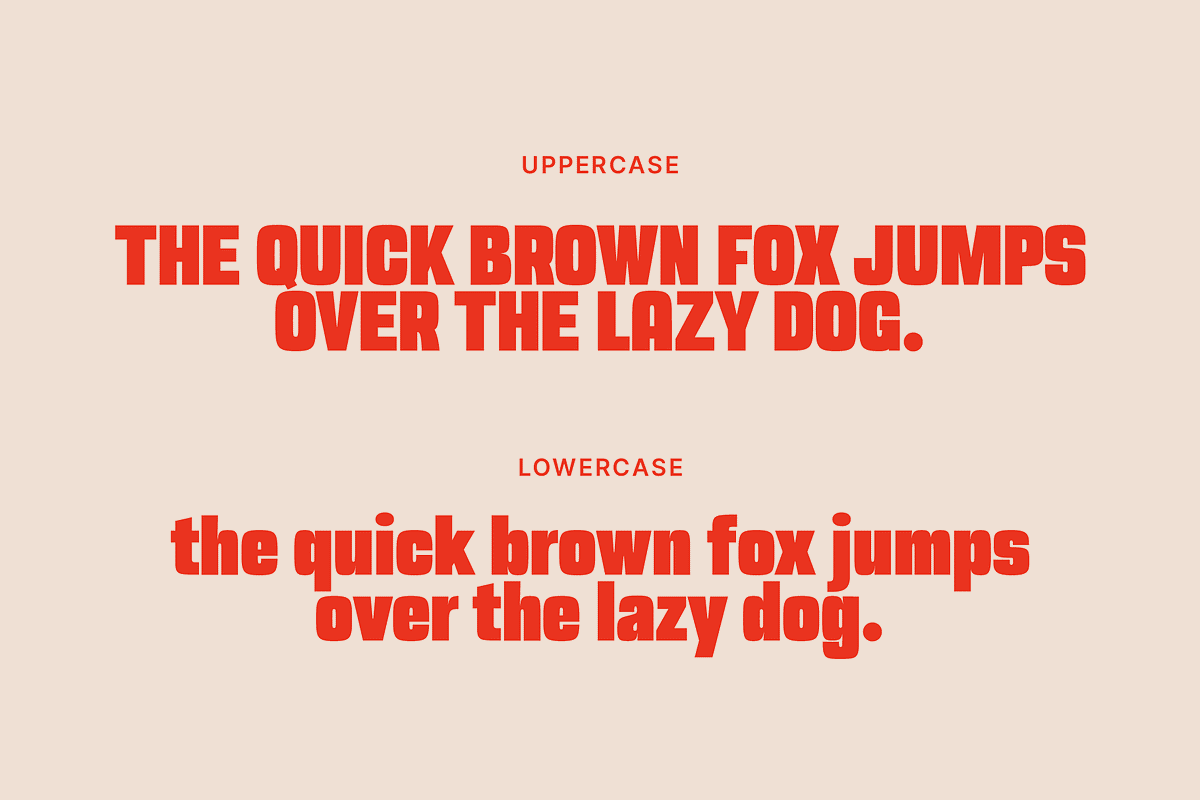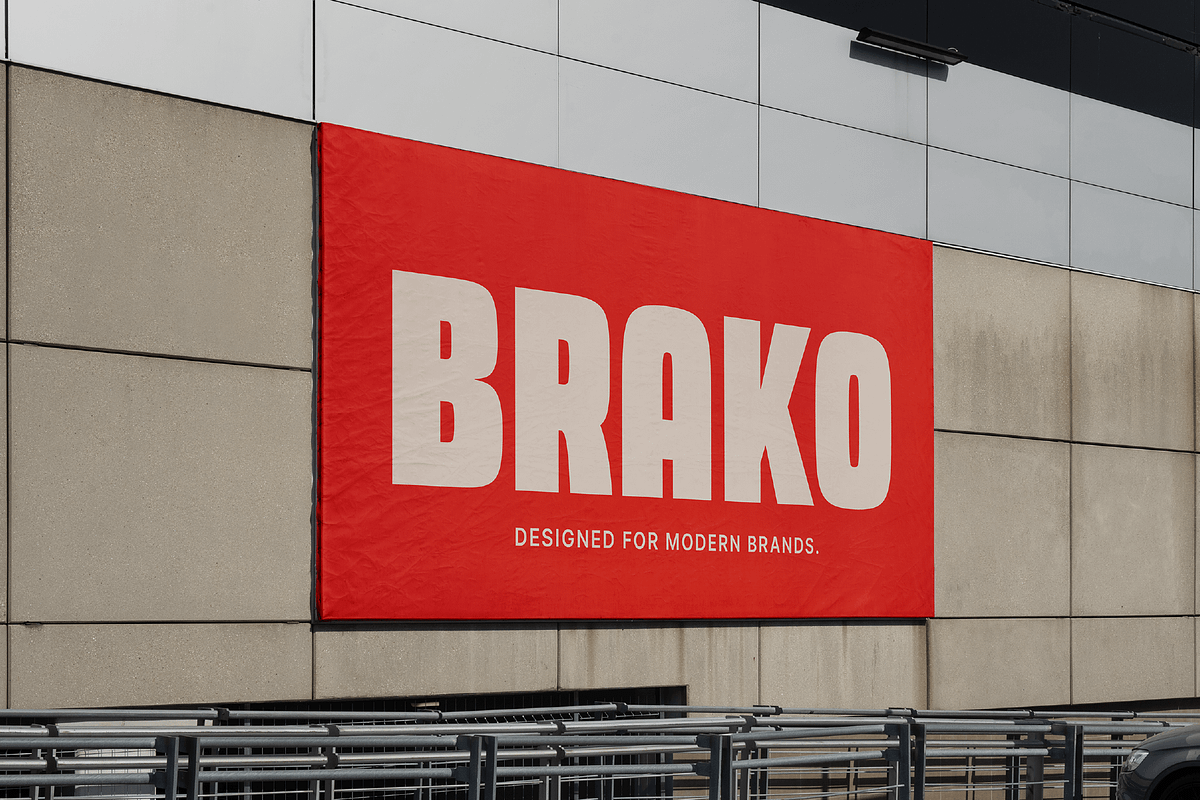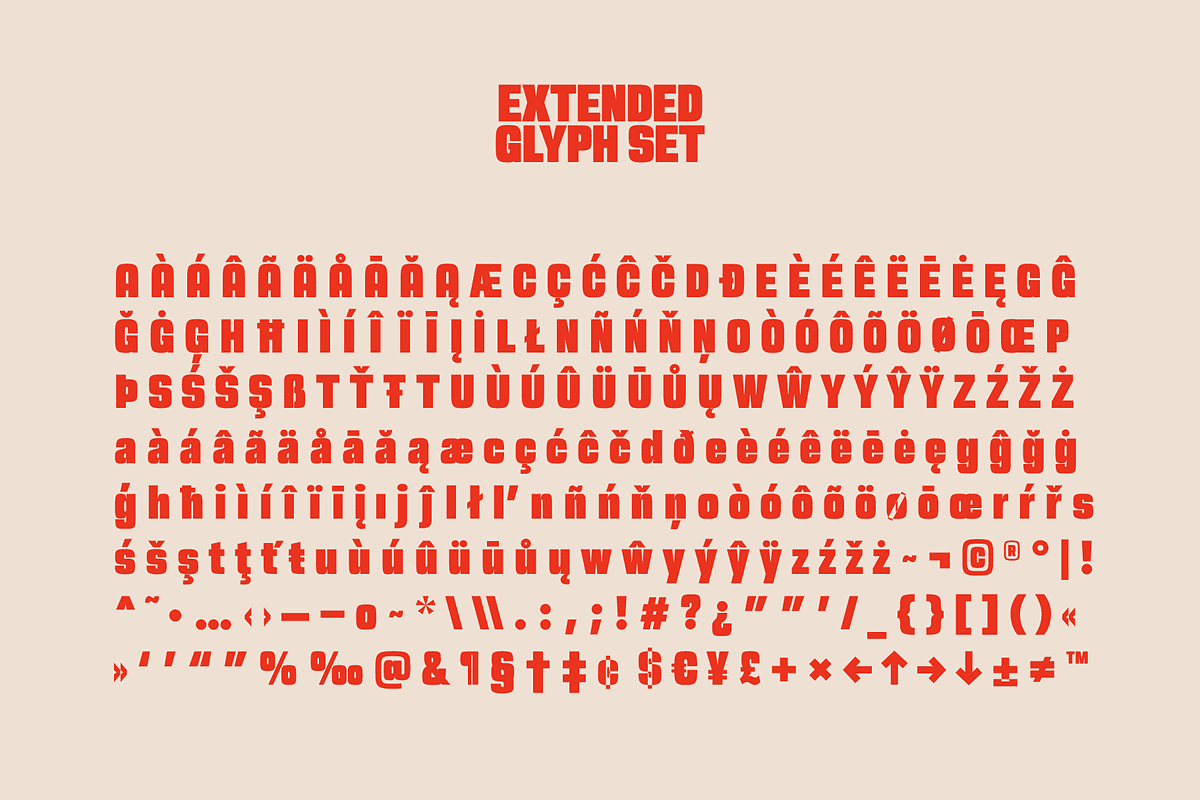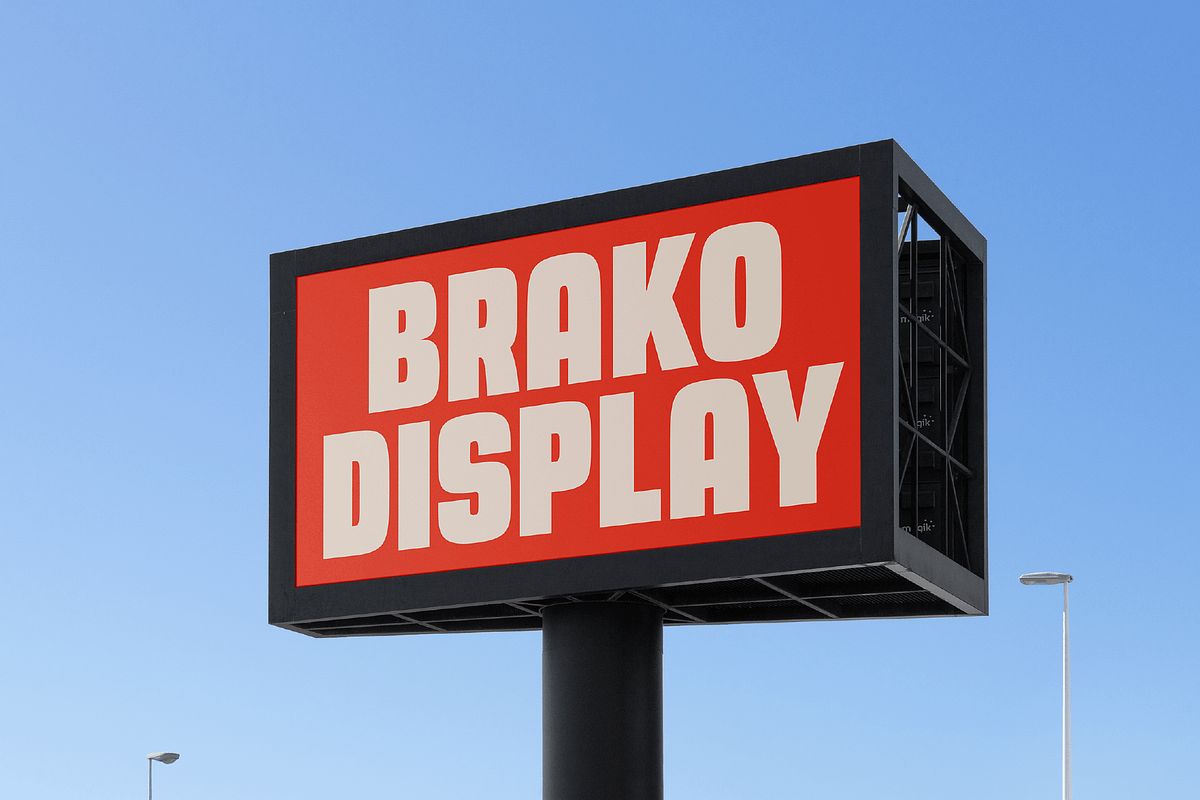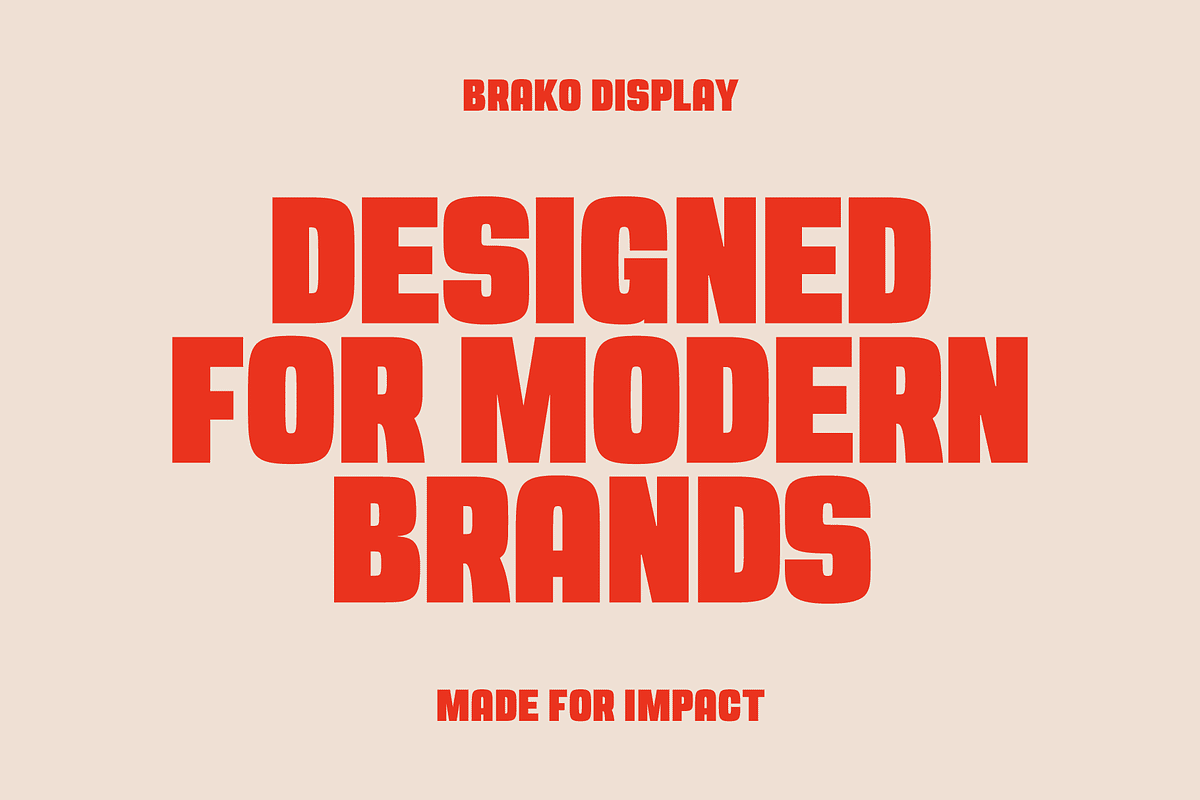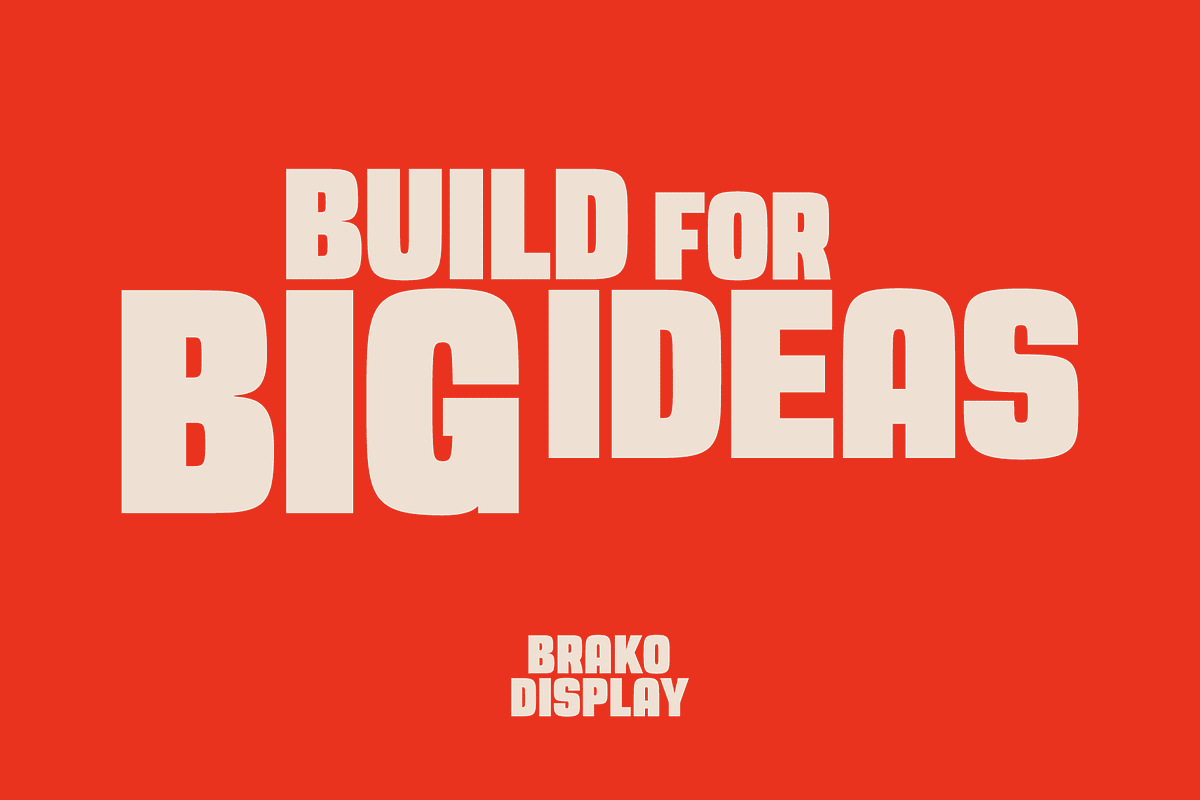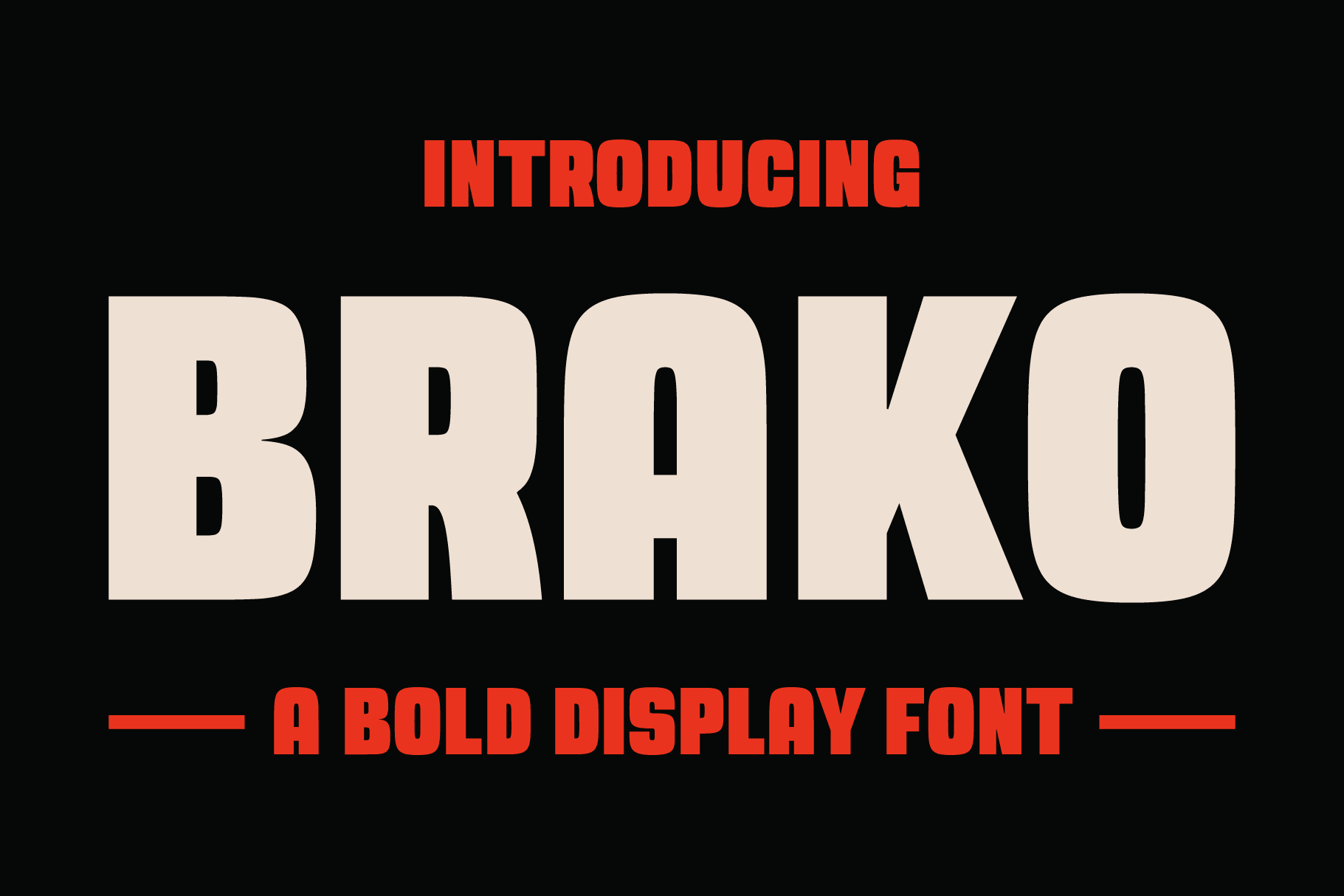
Brako – Bold Display Font
Built for modern brands. Designed to stand out. Brako is a bold condensed display font designed to make an instant impact. With its strong geometric shapes and confident personality, it's perfect for projects that need to stand out. Whether you're creating branding, posters, packaging or striking headlines, Brako delivers a modern and memorable look.
Its clean construction and bold proportions make it versatile enough for both digital and print, while maintaining a distinctive character that feels powerful without becoming overwhelming.
Branding & Visual Identity
Logos
Headlines
Posters
Packaging
Editorial Design
Social Media
Sports & Streetwear
Web Design
Brako is designed for creatives who want bold typography with a clean, modern edge.